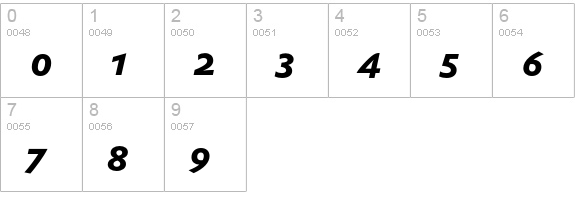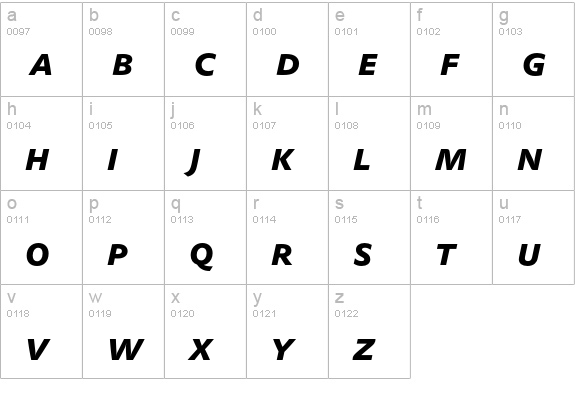
DTLProkyonTCaps Bold Italic is a strong, high-contrast, italic variant in the DTLProkyonTCaps typeface family \xE2\x80\x94 well suited to headlines, attention-grabbing titles, and strong calls-to-action.
The DTLProkyonTCaps Bold Italic font exudes a bold and dynamic presence, making a strong statement with its unique blend of thick strokes and italicized flair. This font is perfect for adding emphasis and style to your projects, whether it be for headings, titles, or creative designs. Its distinctive characteristics make it stand out from the crowd, giving your work a touch of sophistication and modernity. And the best part? This stunning font is available for free download at FontsMarket.com. With just a few clicks, you can add this versatile typeface to your collection and start using it in your projects right away. Don't miss out on the opportunity to enhance your designs with the DTLProkyonTCaps Bold Italic font - download it now and elevate your creative work to new heights!